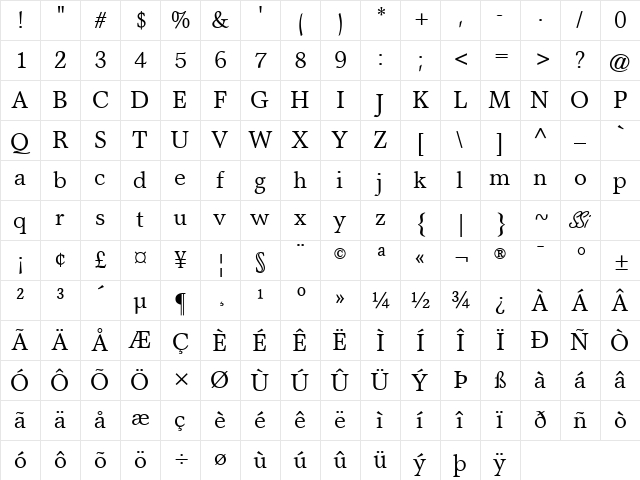
Complete Axiomatic SSi Regular glyph index. Displaying only characters natively supported by Axiomatic SSi Regular font.
Axiomatic SSi is a composed and adaptable typeface that performs quietly and consistently across a wide range of design contexts.
Pro Tip: Use Axiomatic SSi in both headline and body roles to test its range before committing to a single application.